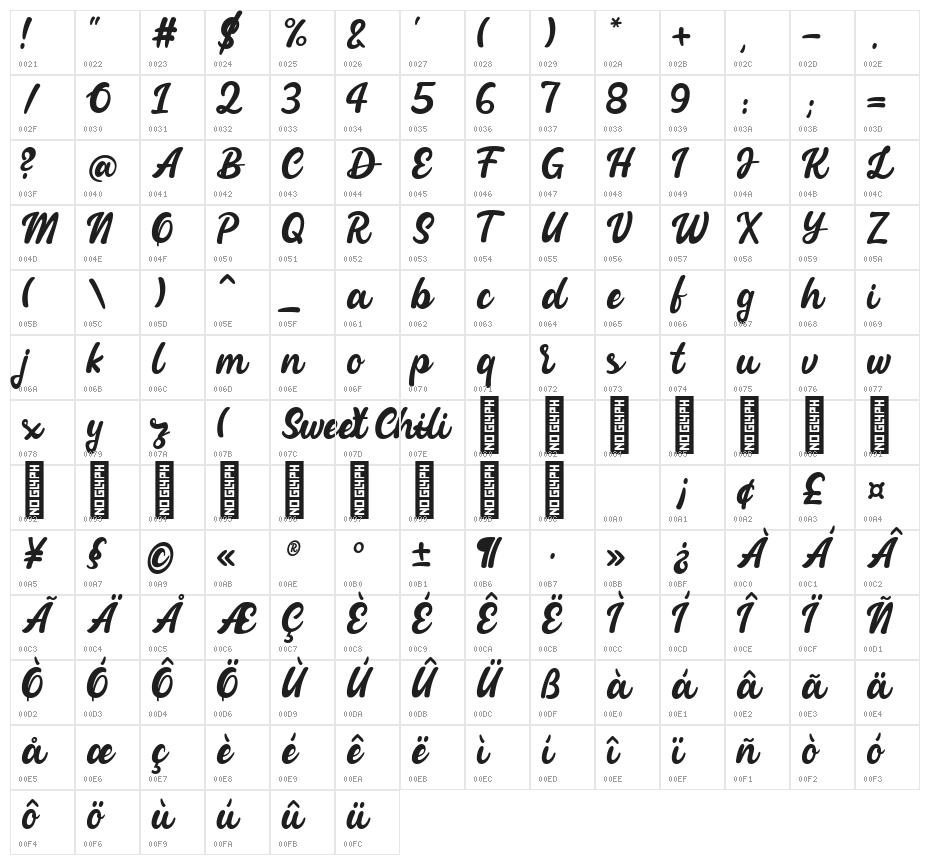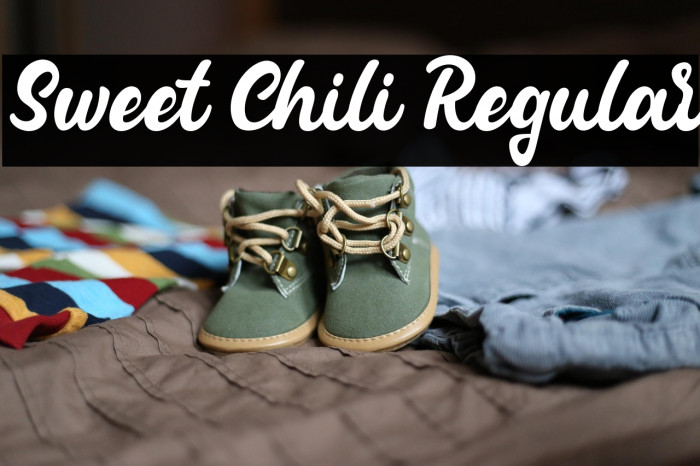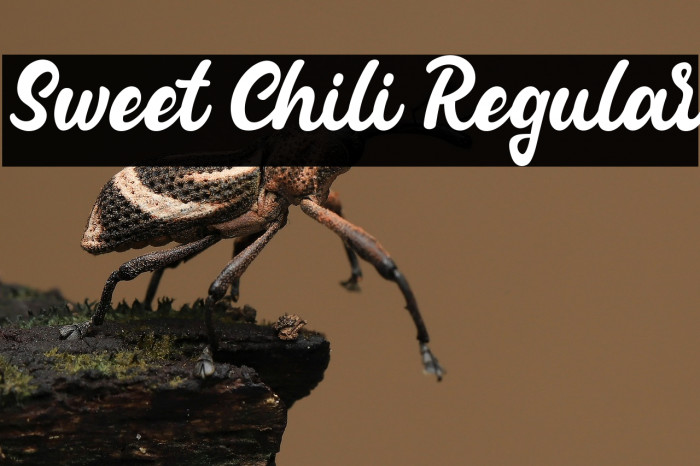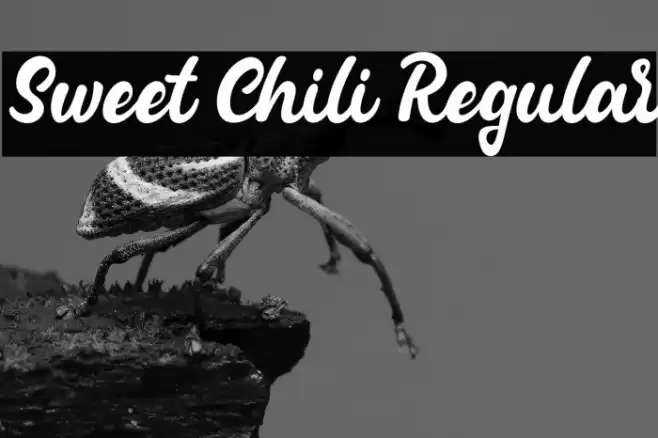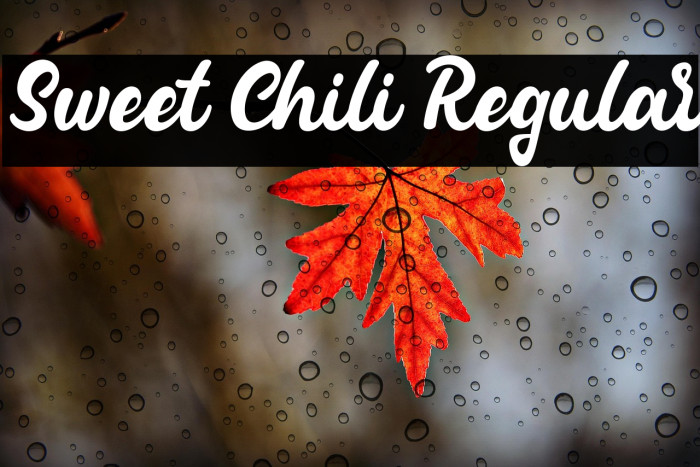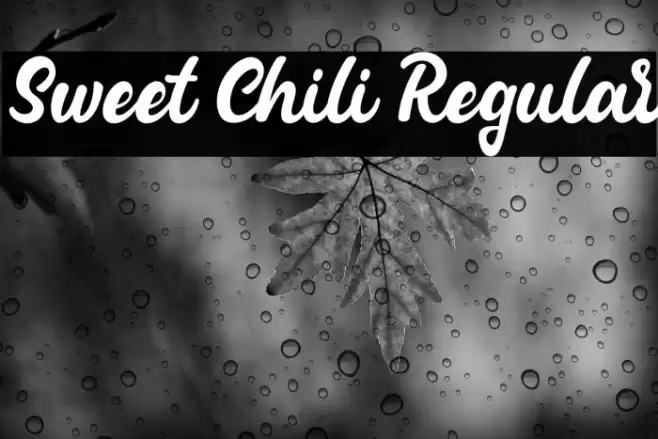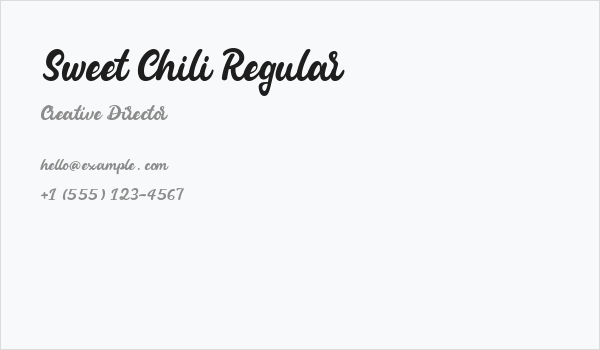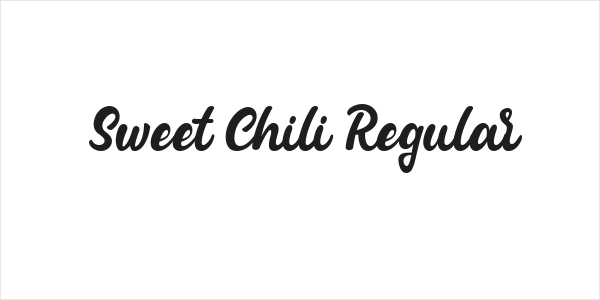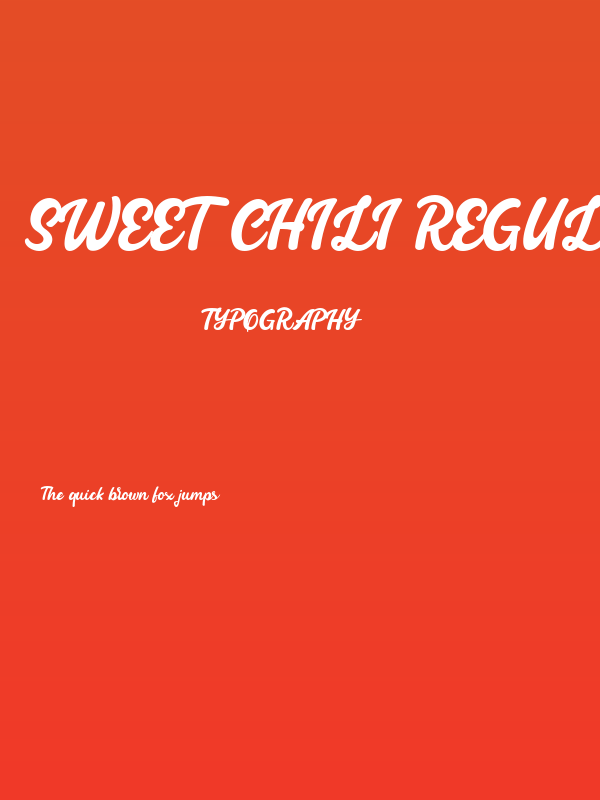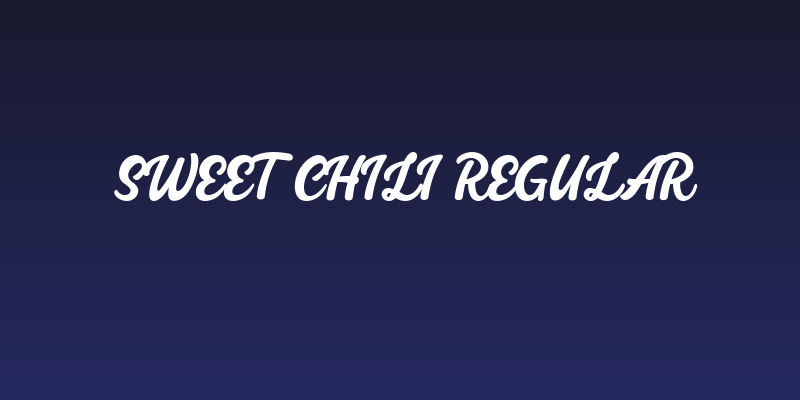
Sweet Chili Regular Font
Sweet Chili Regular Description
This font features a bold, flowing script style that exudes a sense of elegance and dynamism. The characters are interconnected, creating a seamless and fluid appearance. The uppercase letters are slightly larger and more pronounced, while the lowercase letters maintain a consistent flow. The numerals are distinct yet harmonious with the overall script style. Special characters are well-integrated, maintaining the font's cohesive look. The strokes are thick, providing a strong visual impact, and the overall design is both modern and classic, making it versatile for various uses.
| Proposed Projects | Ideal for branding, invitations, greeting cards, and logo design projects. |